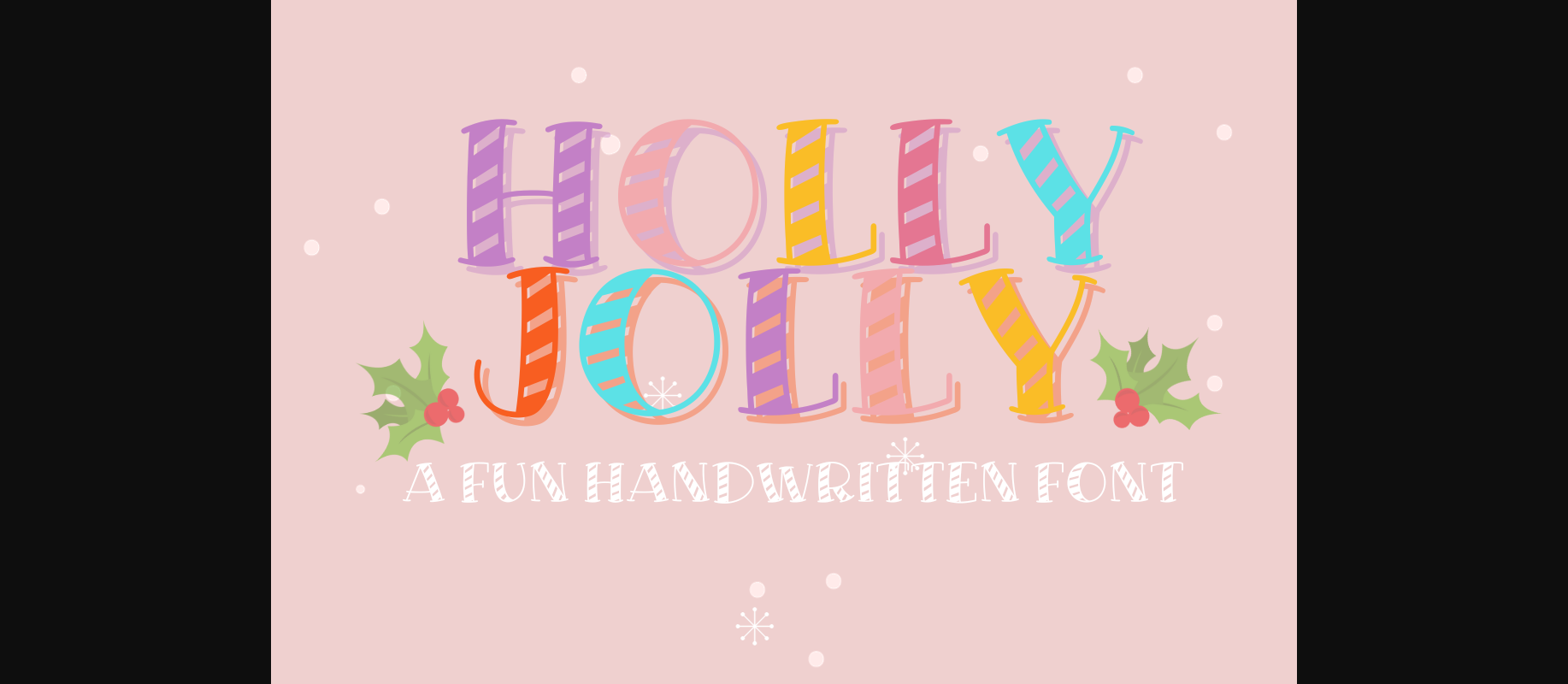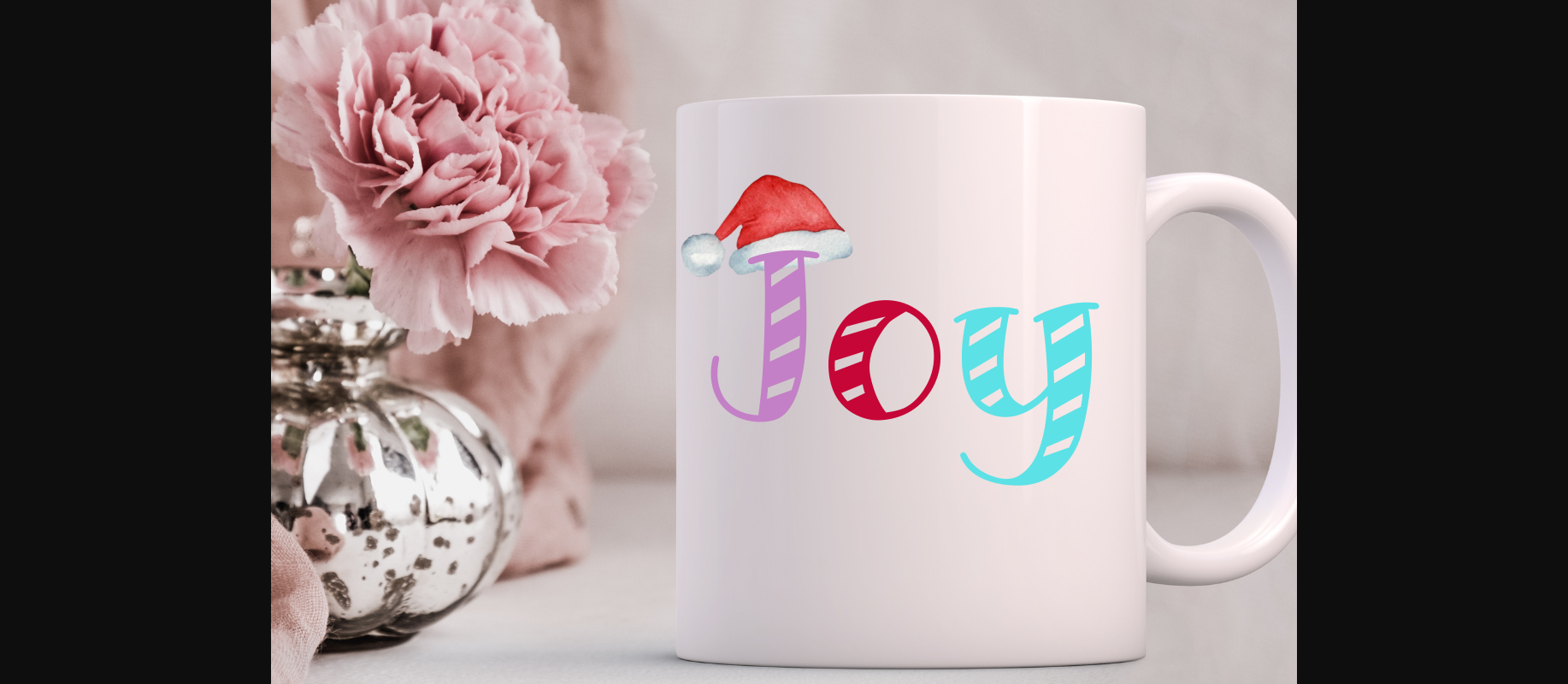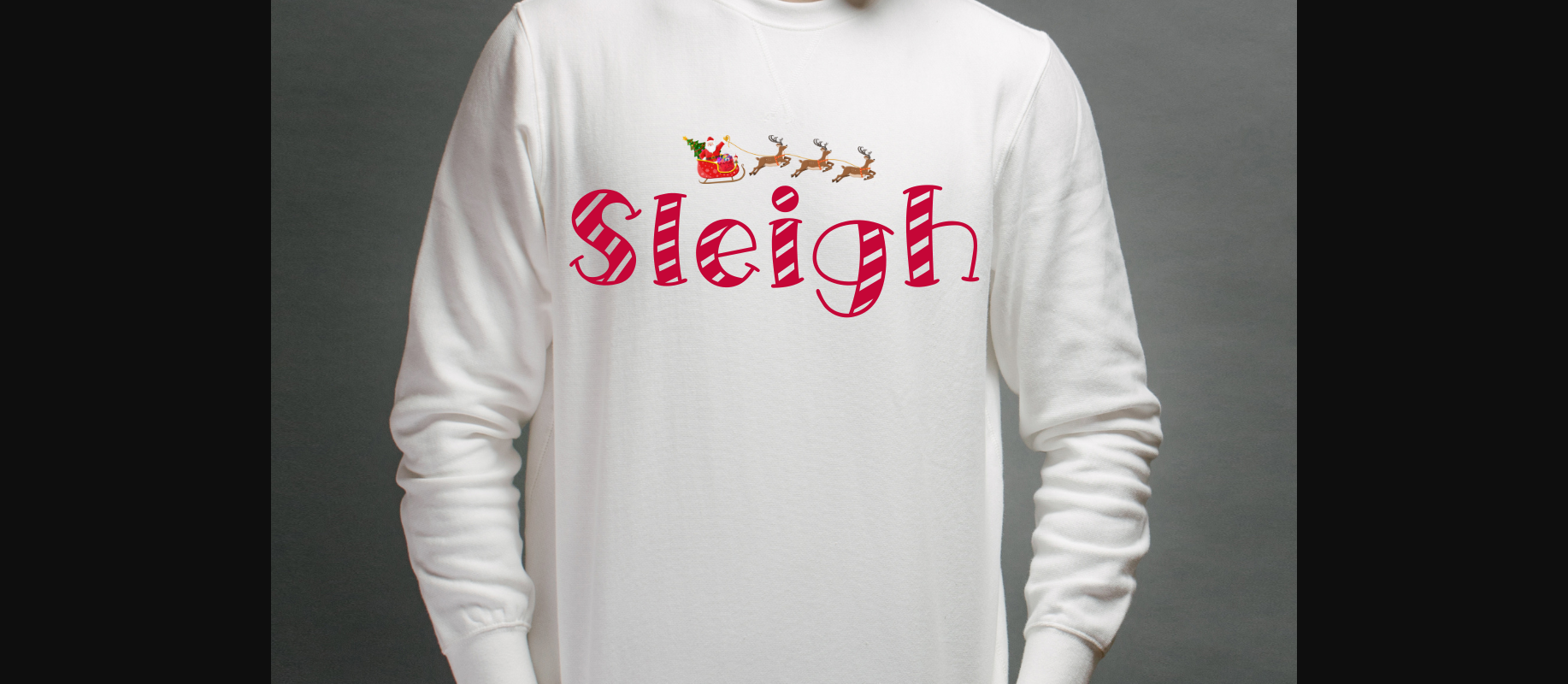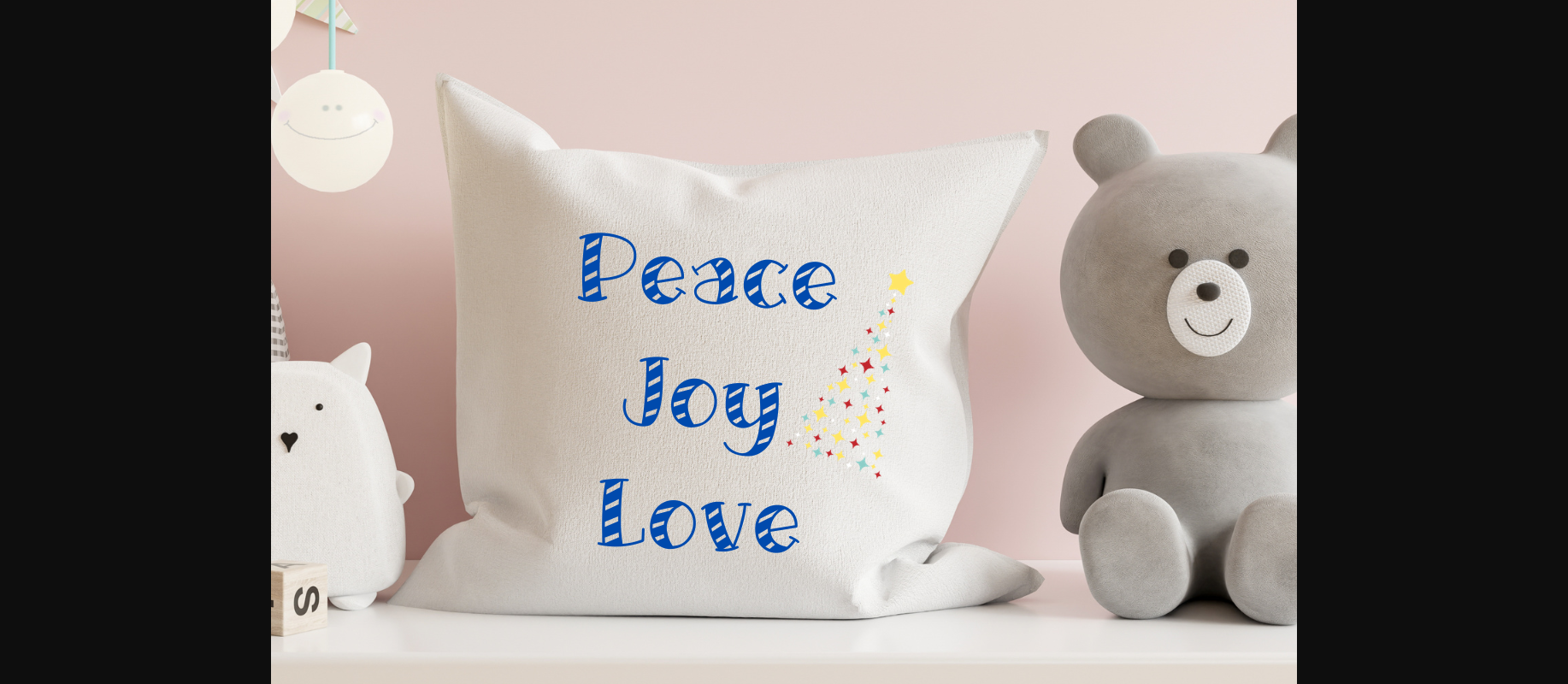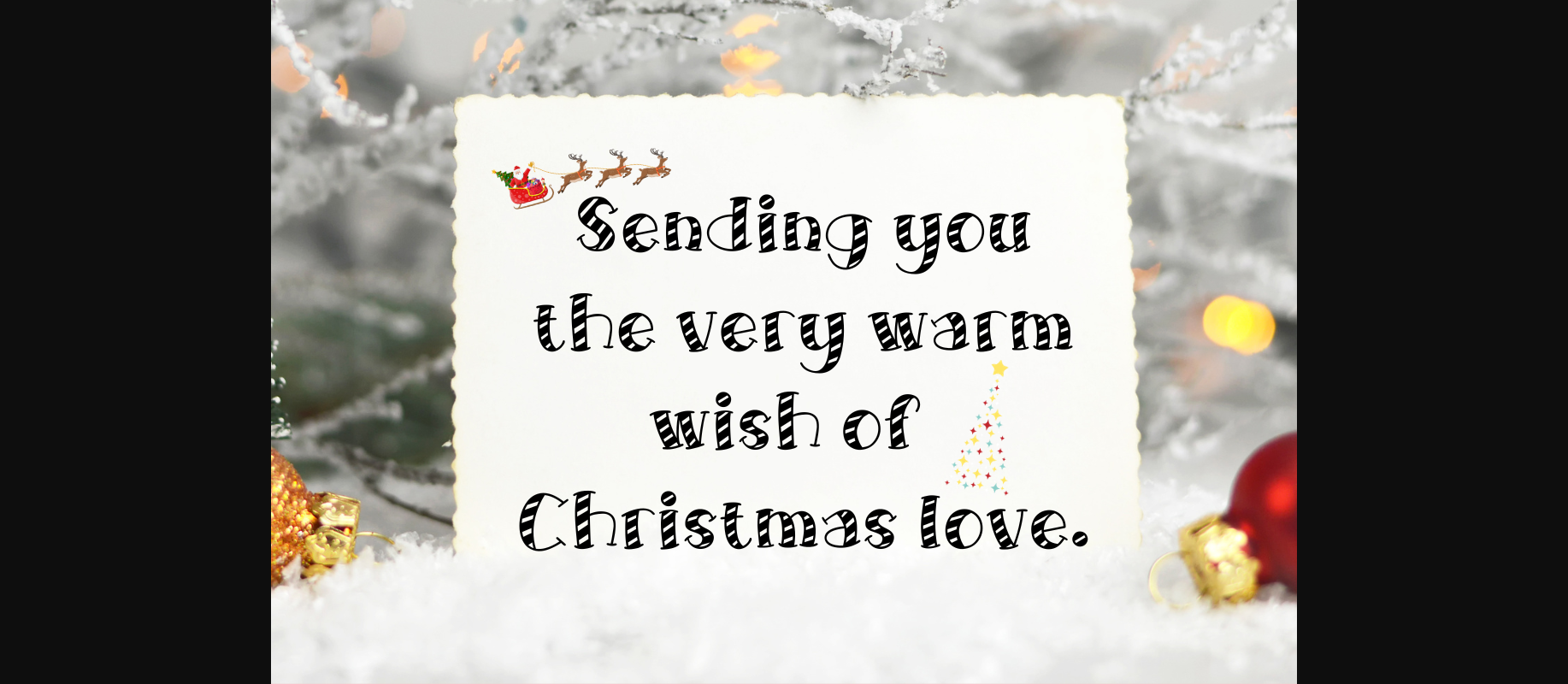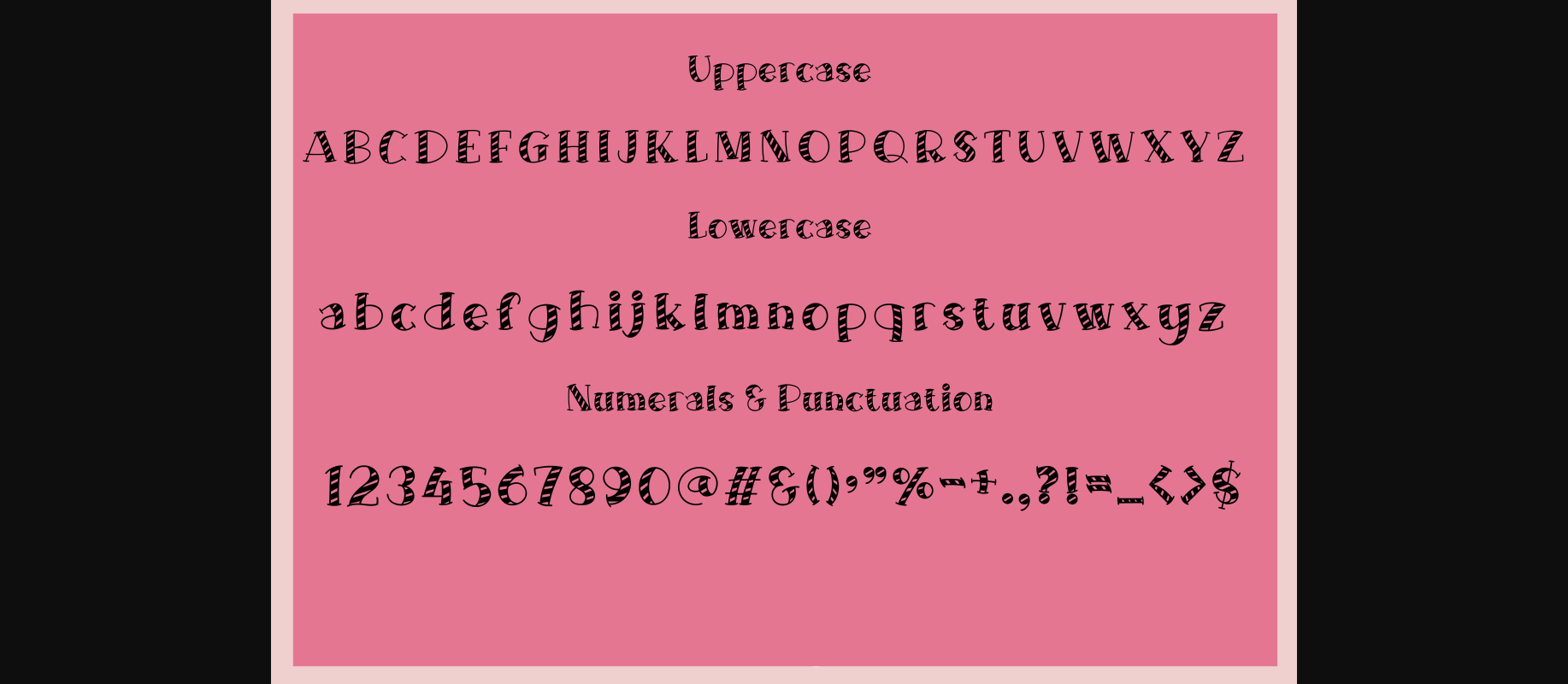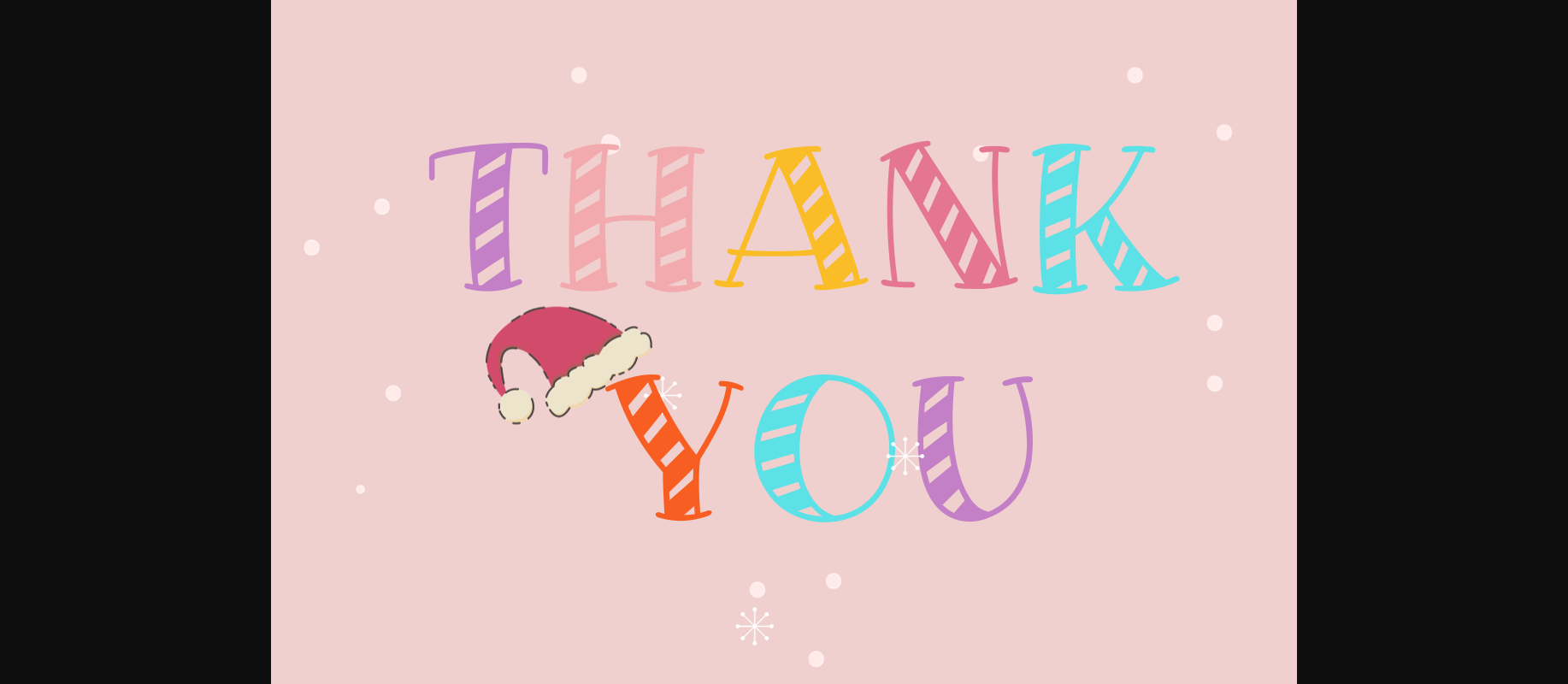
Holly Jolly Font
About Holly Jolly Font
Holly Jolly Font effortlessly blends retro charm with playful flair, enhancing greeting cards, stylish wear, and captivating stickers. This versatile font fits well as a cute planner, digital or handwritten style, a GoodNotes title, Canva creation, and across various file formats (OTF, TFF). Its allure as a lovely, adaptable Christmas display font adds a touch of festive nostalgia to diverse design projects.